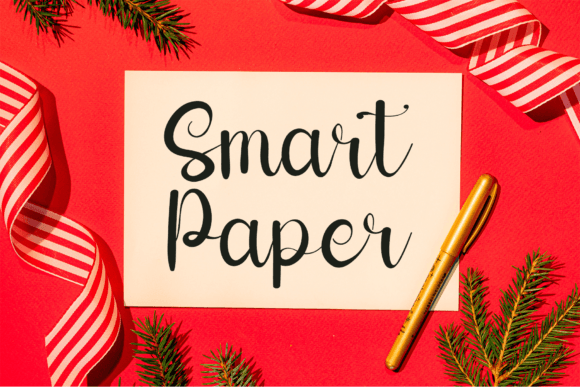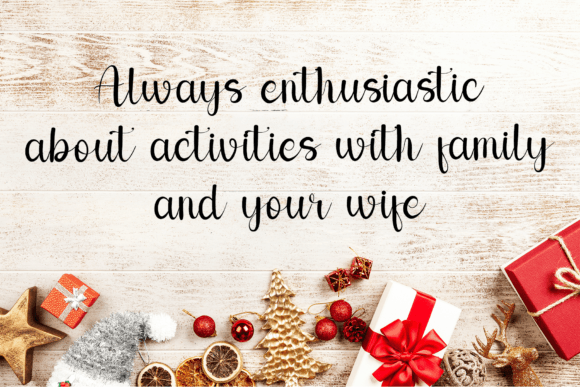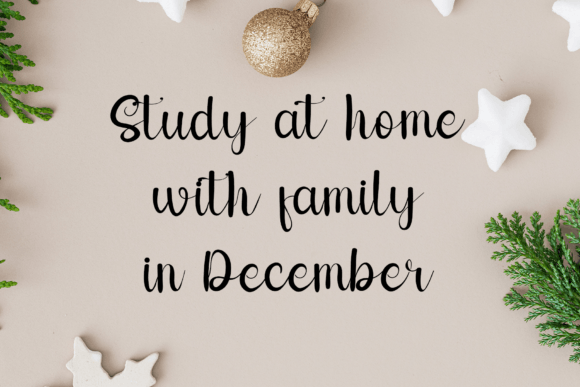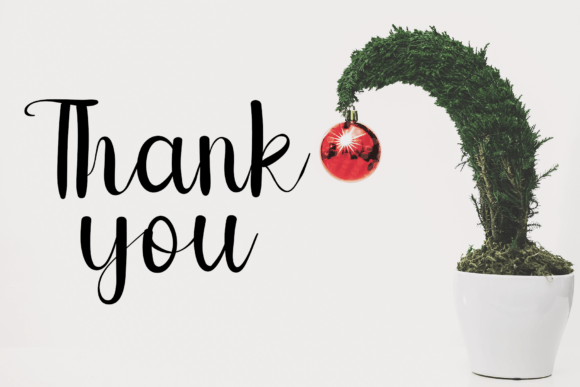
Unwrapping the Magic of the Barbie Christmas Font
It’s that time of the year when creativity runs high and the holiday spirit is in the air. As designers, we’re always on the lookout for the perfect tools to bring our festive projects to life. And what better way to do that than with a font that captures the essence of Christmas magic? Enter the Barbie Christmas Font, a stunning handwritten font that adds a touch of elegance and whimsy to any design.
With its modern vibe and spotless form, this font is designed to enhance the beauty of your projects. Whether you’re creating holiday cards, gift tags, or social media graphics, the Barbie Christmas Font is the perfect companion to help you express your creativity. Its balanced and varied design makes it a valuable asset for designers looking to add a unique touch to their work.
Key Features of Barbie Christmas Font
- Font Style: A playful, cursive script font with a festive holiday theme, perfect for adding a touch of magic to your Christmas designs.
- Unique Characteristics: Features a range of festive decorations, including holly leaves, berries, and snowflakes, adding a whimsical touch to your designs.
- Character Count: Includes a vast character set, including uppercase and lowercase letters, numbers, and special characters, making it suitable for a wide range of design projects.
Barbie Christmas Font Review
Overall, I think the Barbie Christmas Font is a cute and playful addition to any holiday design project. It works well for ✨ titles and headings, adding a touch of whimsy and festive cheer to your work. The font is also highly customizable, with a range of color options and styling choices available.
Here are some specific things that work well about this font:
- Cute and playful style
- Works well for titles and headings
- Available in a range of colors
- The font can be a bit too ornate for some designs
- It may not be suitable for professional or formal projects
- The font can be a bit difficult to read in certain contexts
Overall, I think the Barbie Christmas Font is a fun and festive addition to any holiday design project. While it may have some limitations, it’s a great choice for those looking to add a touch of whimsy and playfulness to their work.